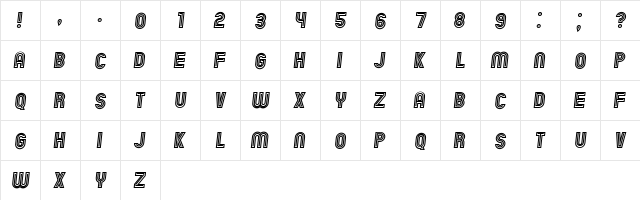
Chicago Neon Italic
Design Context for Chicago Neon Typeface
Chicago Neon has a distinctly futuristic character, with geometric precision and clean angles that feel at home in technology, gaming, and sci-fi contexts. Its italic angle brings a sense of urgency and motion to the letterforms.